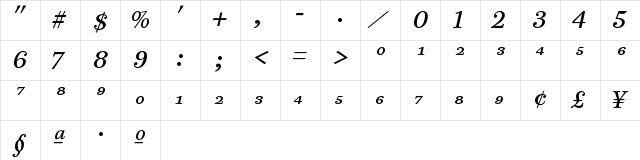
PB9TTP-ItalicFrac Regular
Design Context for PB9TTP-ItalicFrac Typeface
PB9TTP-ItalicFrac offers clean, dependable letterforms without strong stylistic allegiance, making it a practical choice for designers who need flexibility. Its italic angle brings a sense of urgency and motion to the letterforms.
Pro Tip: Use PB9TTP-ItalicFrac for emphasis, pull quotes, and subheadings where its slanted energy can add rhythm to the layout.